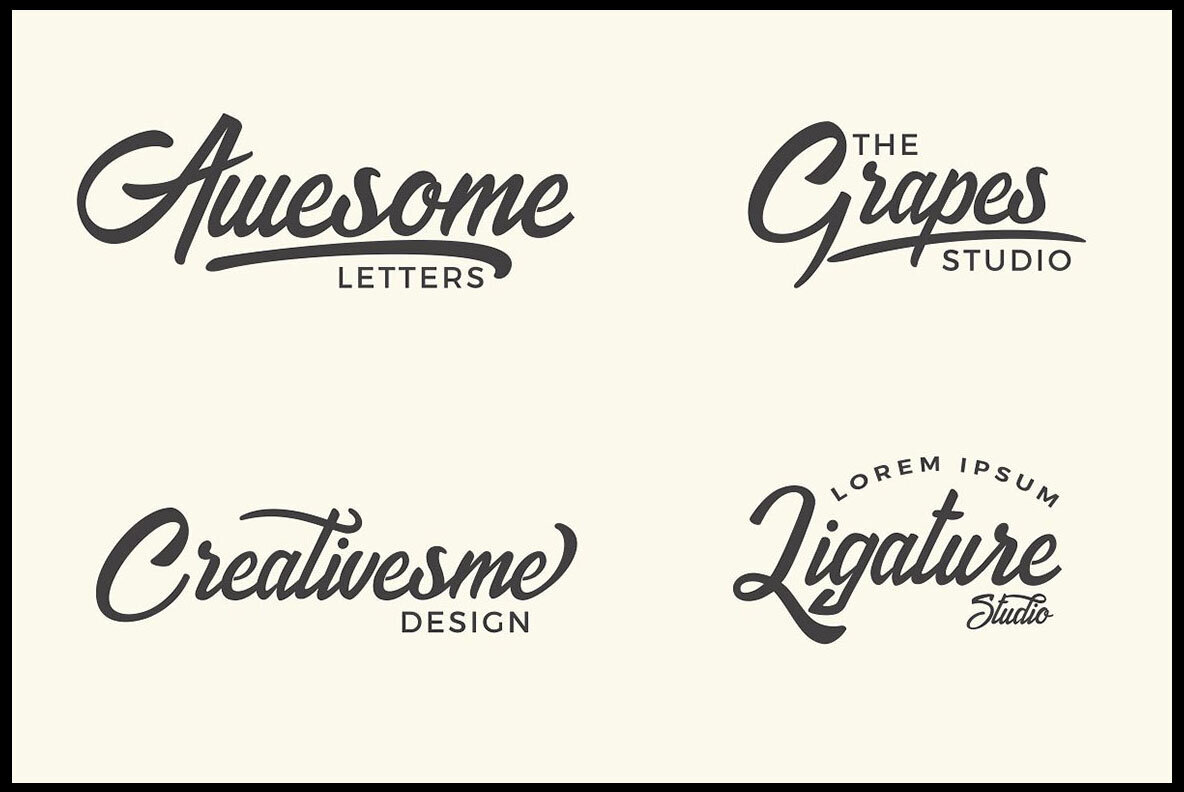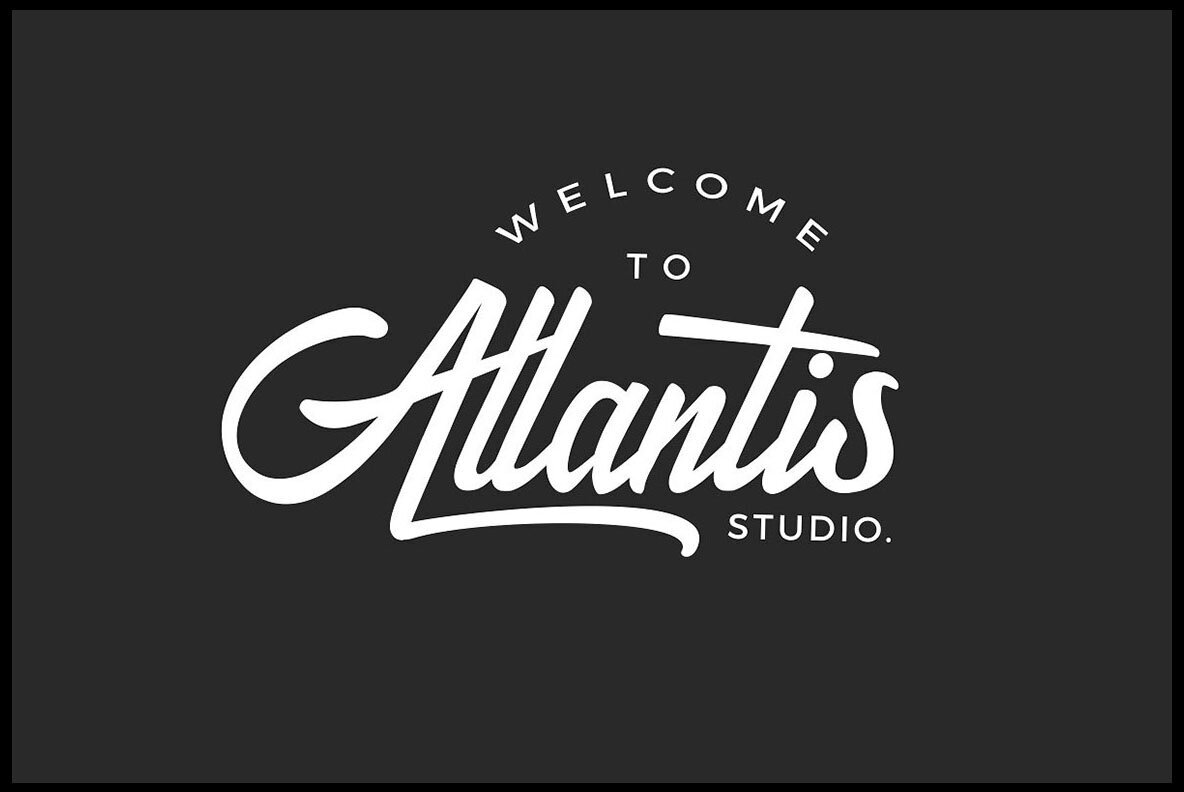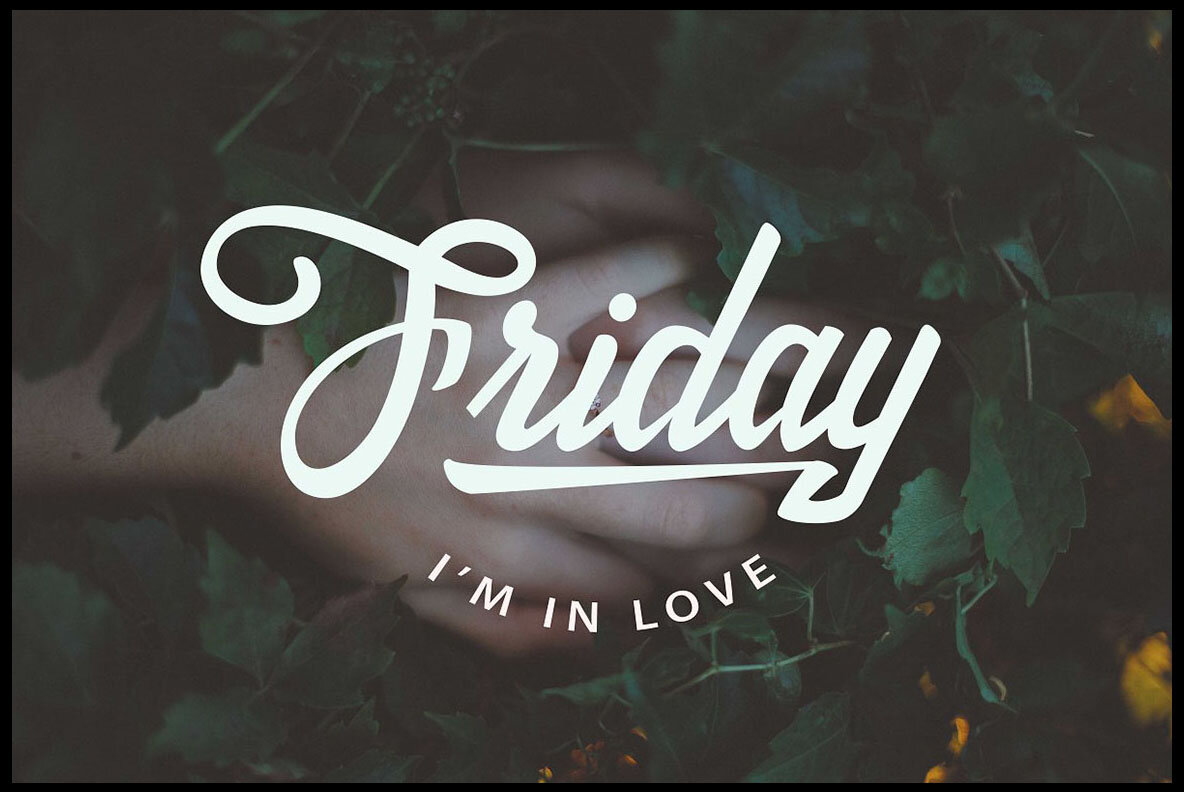
Bandakala Font
Bandakala embodies the essence of urban and freestyle art, offering a casual marker style with plentiful stylistic alternates. This font allows for the creation of realistic headers, making it a perfect choice for dynamic branding, striking advertising, or transformative creative headers.Bandakala: Urban-Inspired Freestyle Typeface